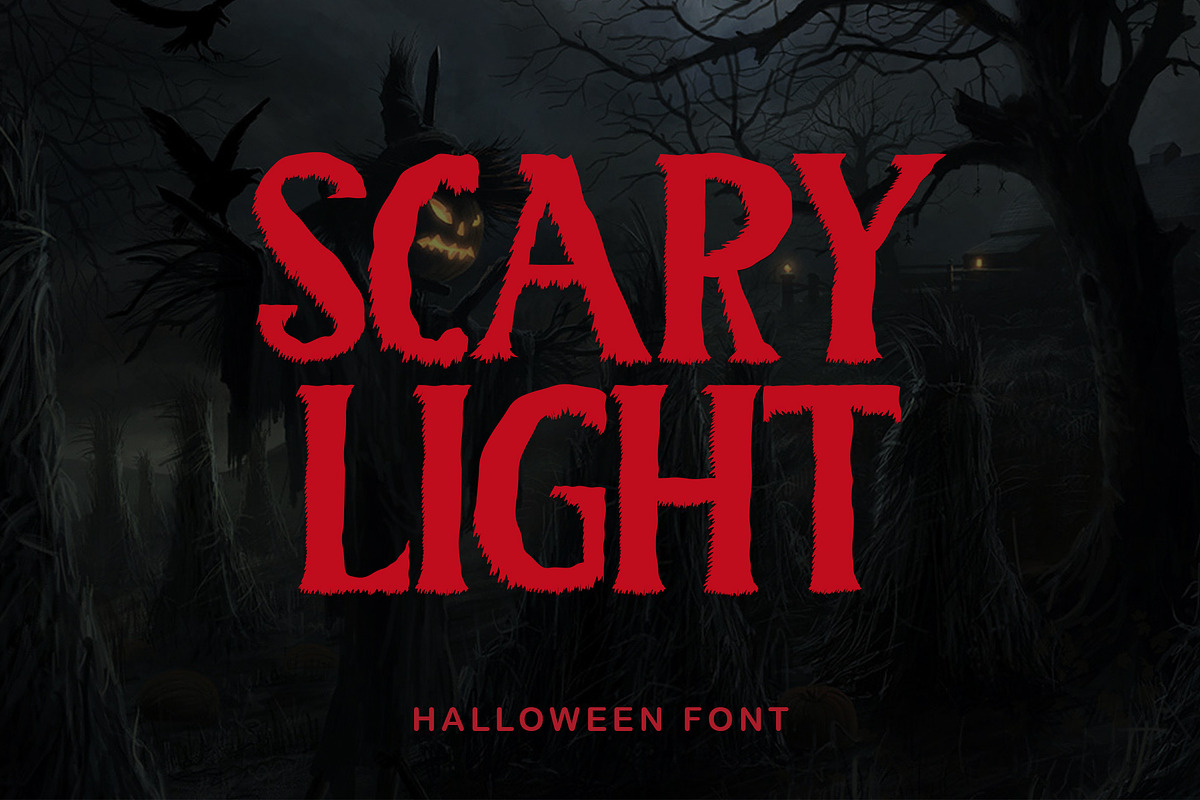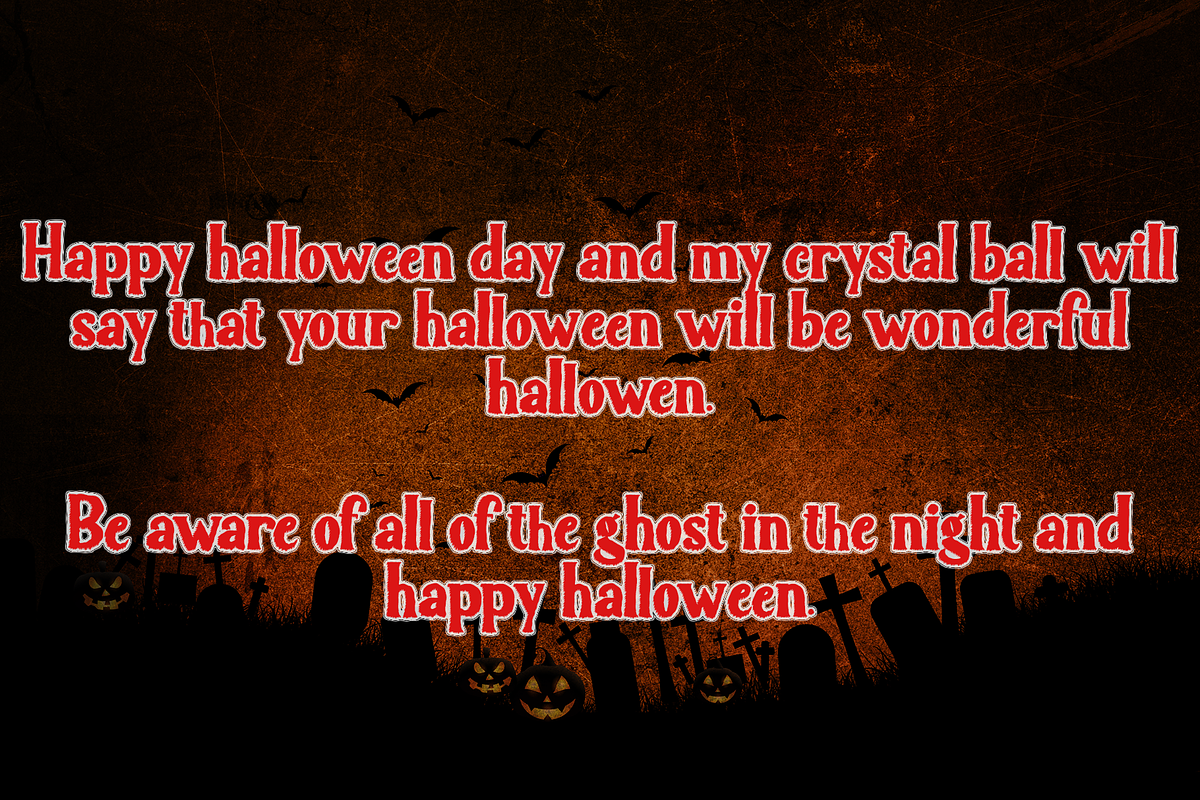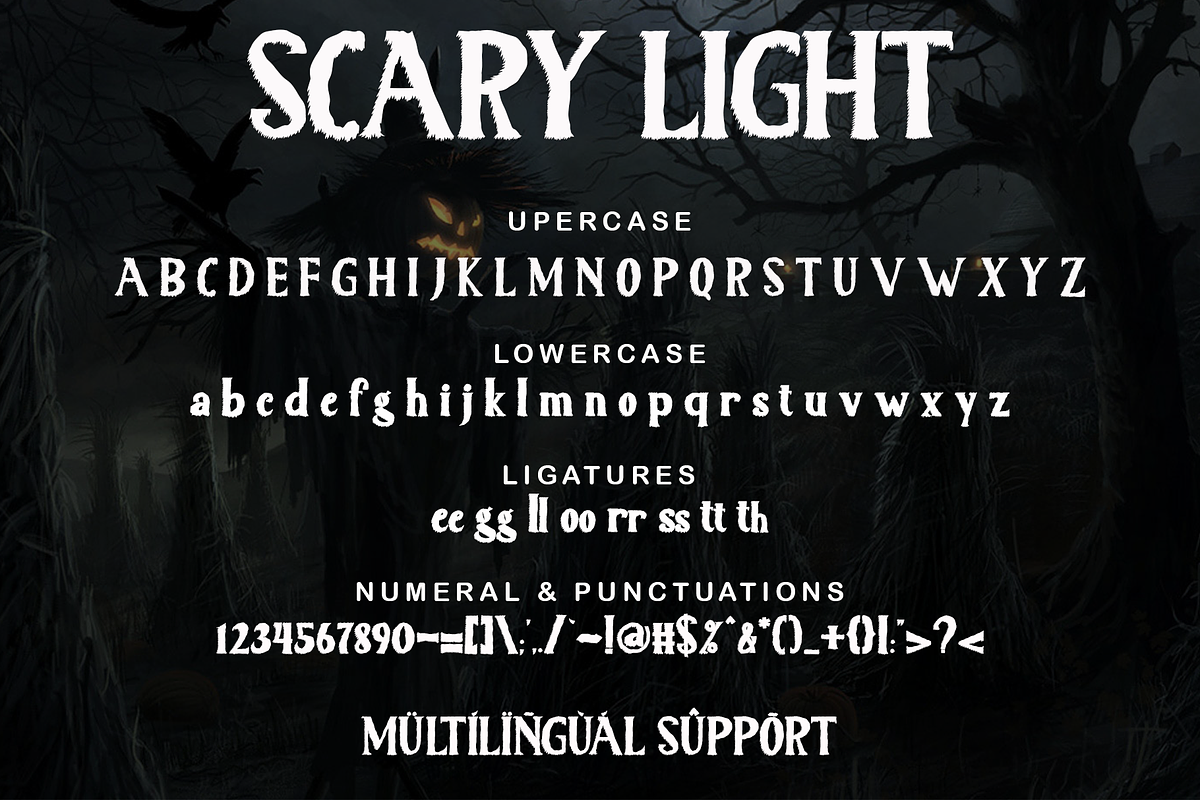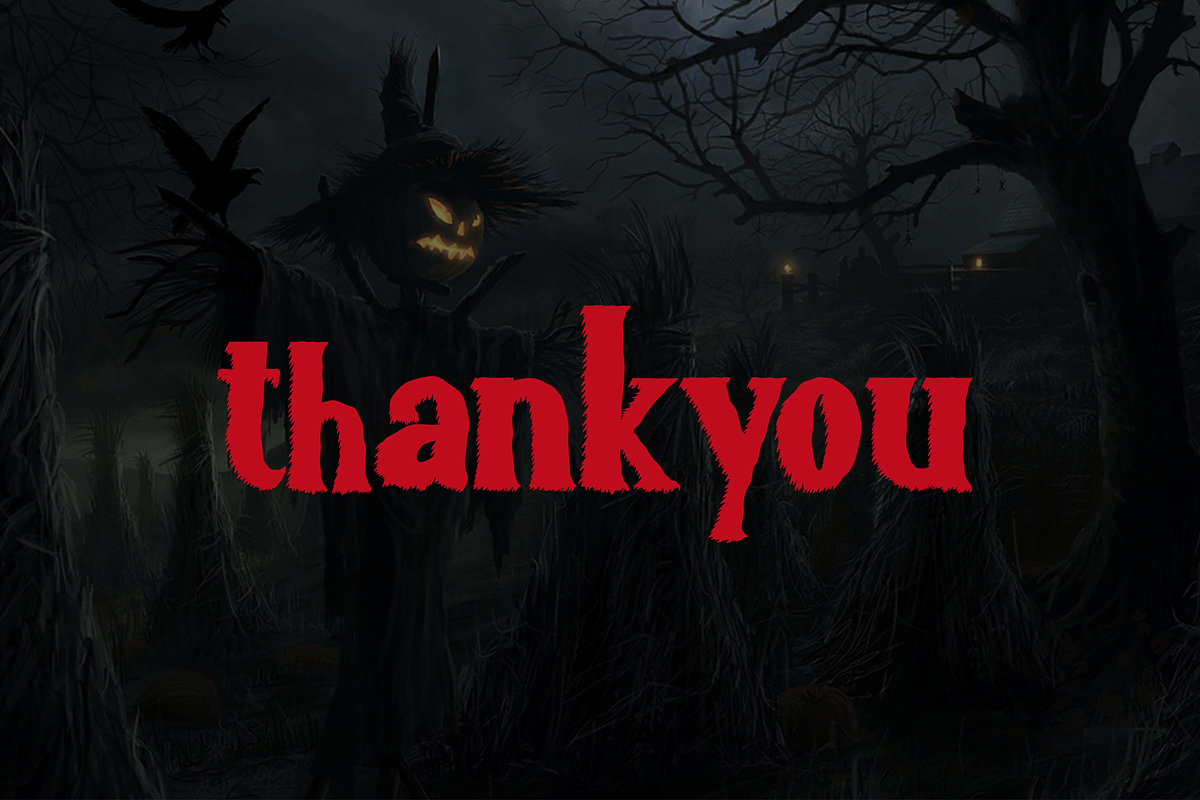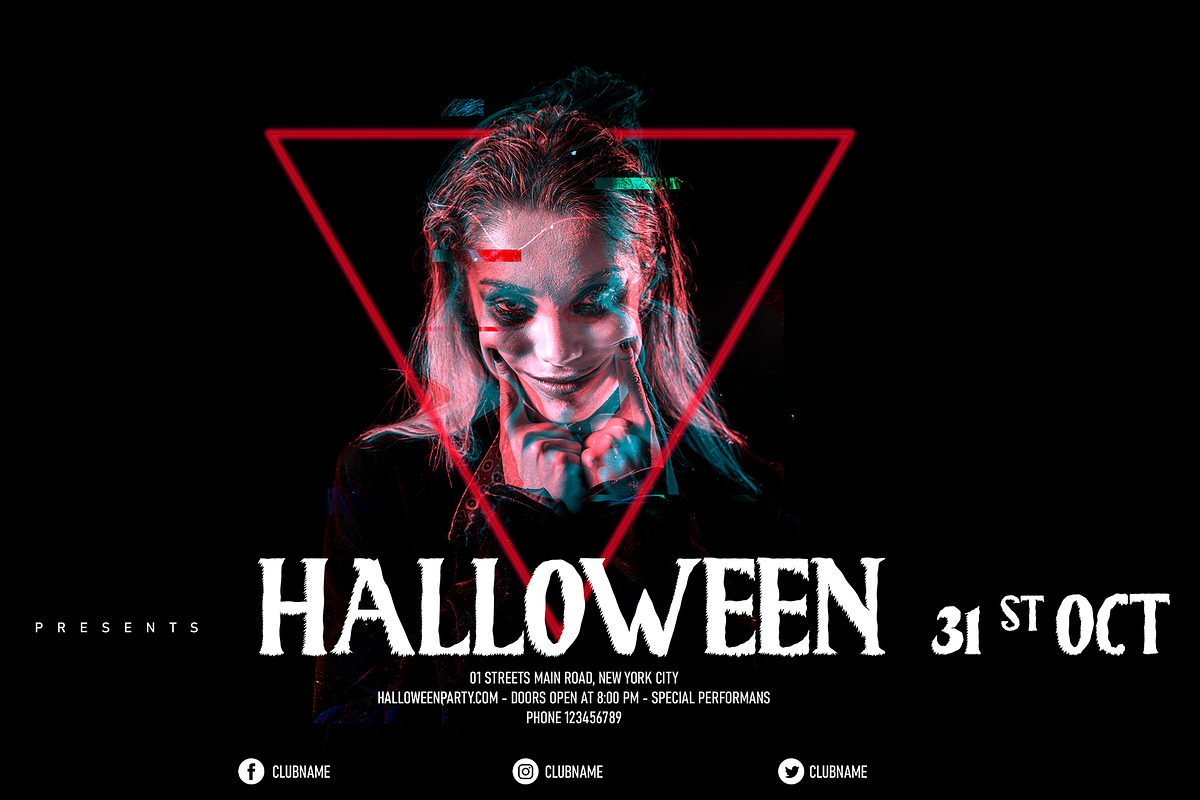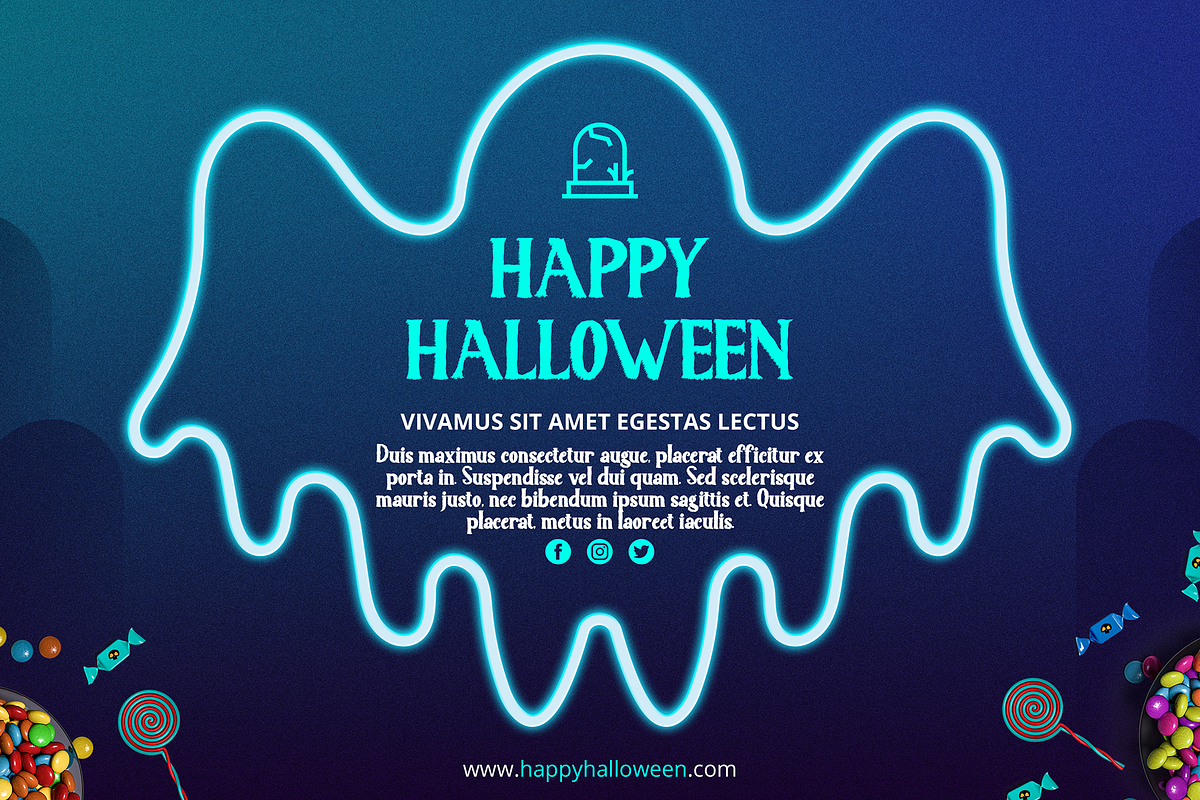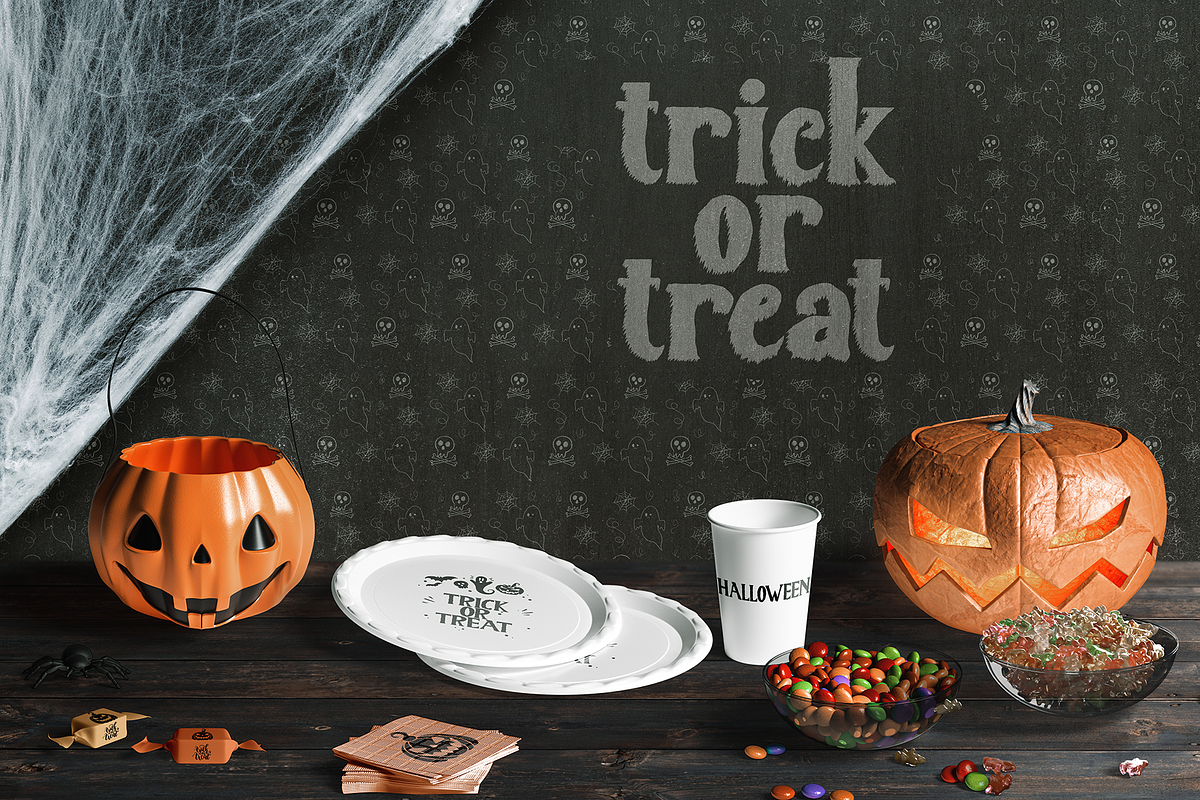
Scary Light
"Scary Light" is a halloween themed font that will add horror and excitement to your Halloween party. This font is very easy to use because it has been specially designed. "Scary Light" is also equipped with multilingual support, numeral and punctuations, ligatures, uppersace, and lowercase. So that this font is very complete and is expected to be able to help your work or Halloween moment.